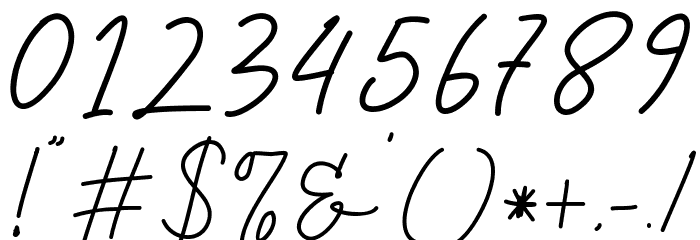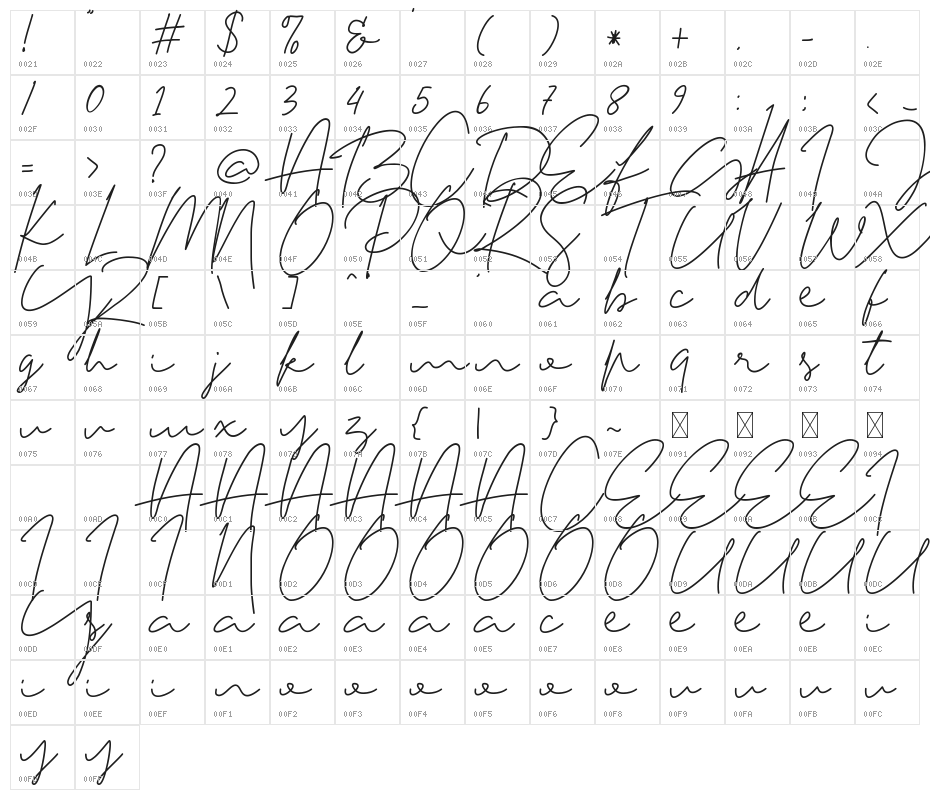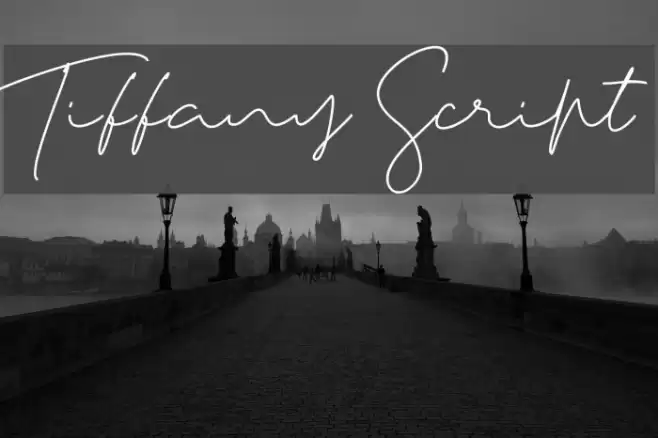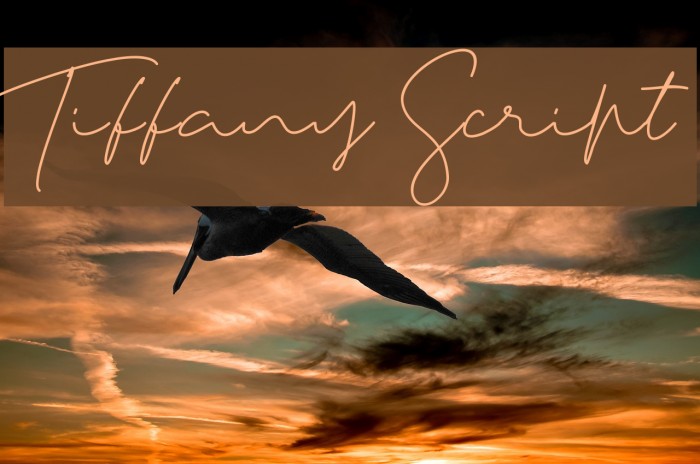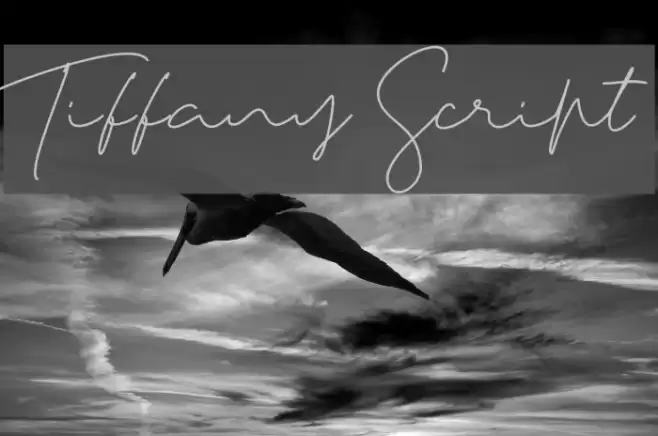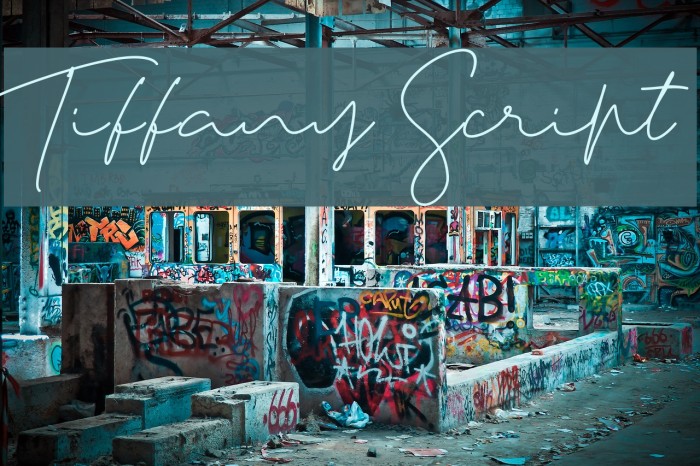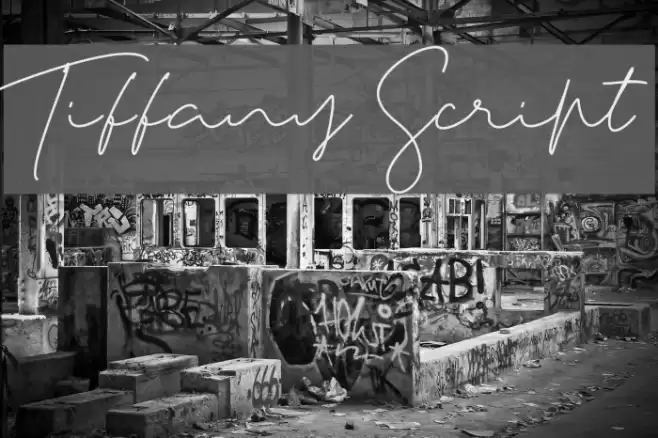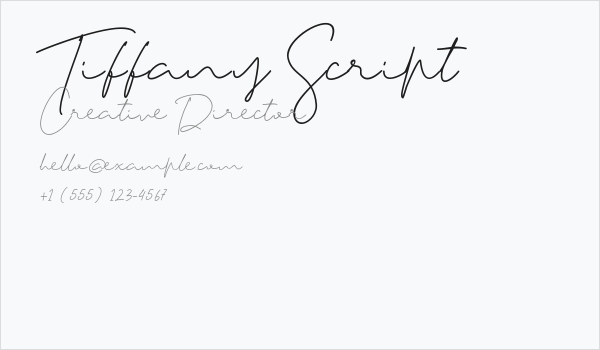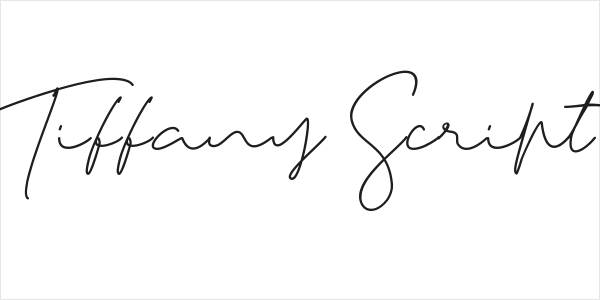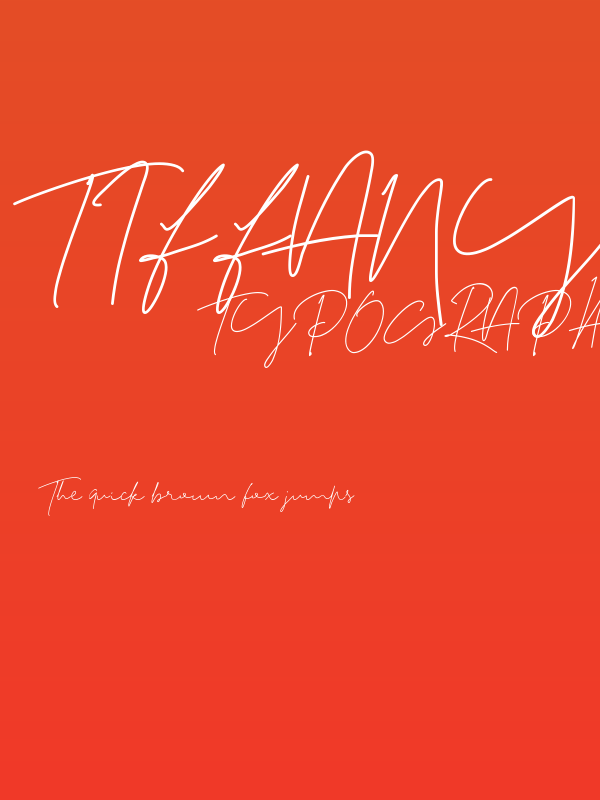
Tiffany Script Font
Tiffany Script Description
This font exudes elegance and sophistication with its fluid, cursive style. The characters are connected in a seamless flow, reminiscent of classic calligraphy. The uppercase letters are tall and graceful, while the lowercase letters maintain a consistent, flowing baseline. The numbers are designed with a similar cursive flair, ensuring a cohesive look across all characters. Special characters are thoughtfully integrated, maintaining the overall aesthetic. This script font is perfect for projects that require a touch of elegance and personal flair.
| Proposed Projects | Ideal for wedding invitations, elegant branding, personal stationery, and upscale packaging. |